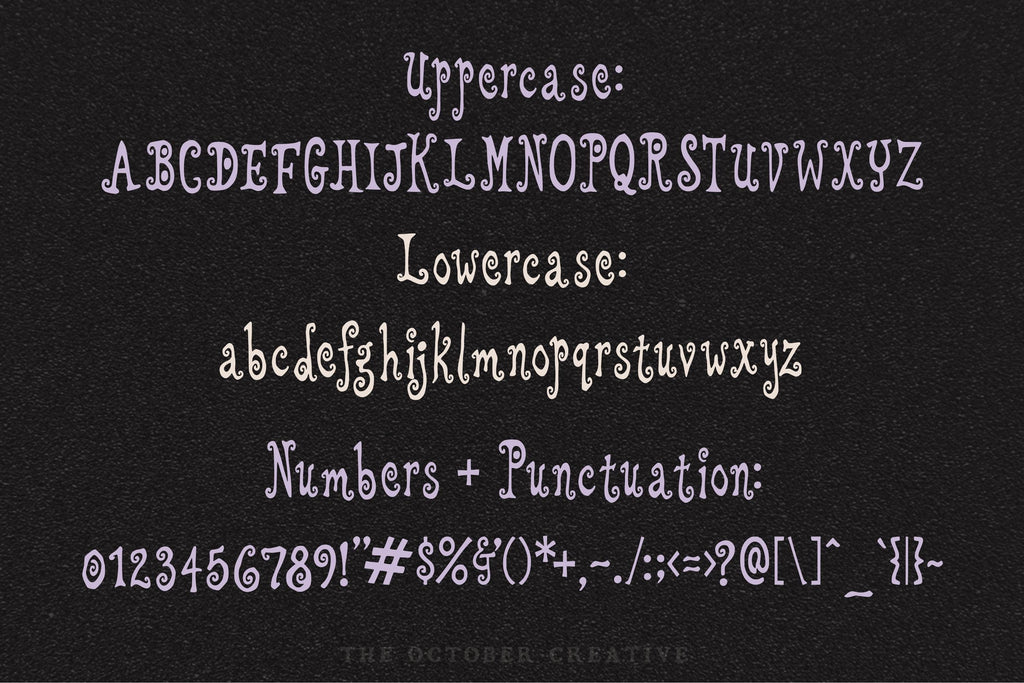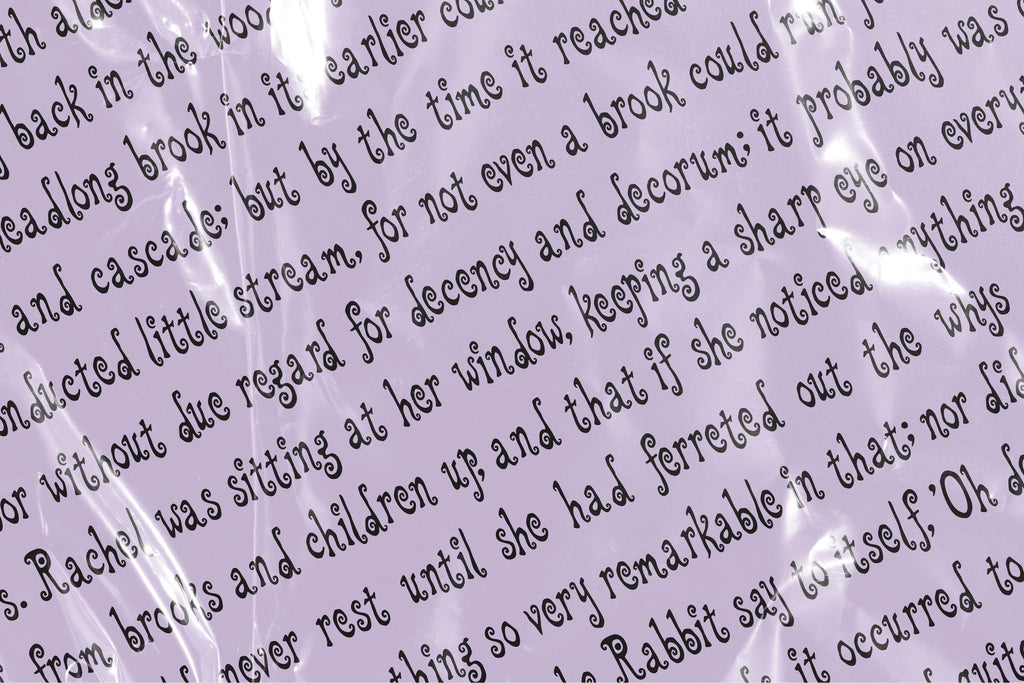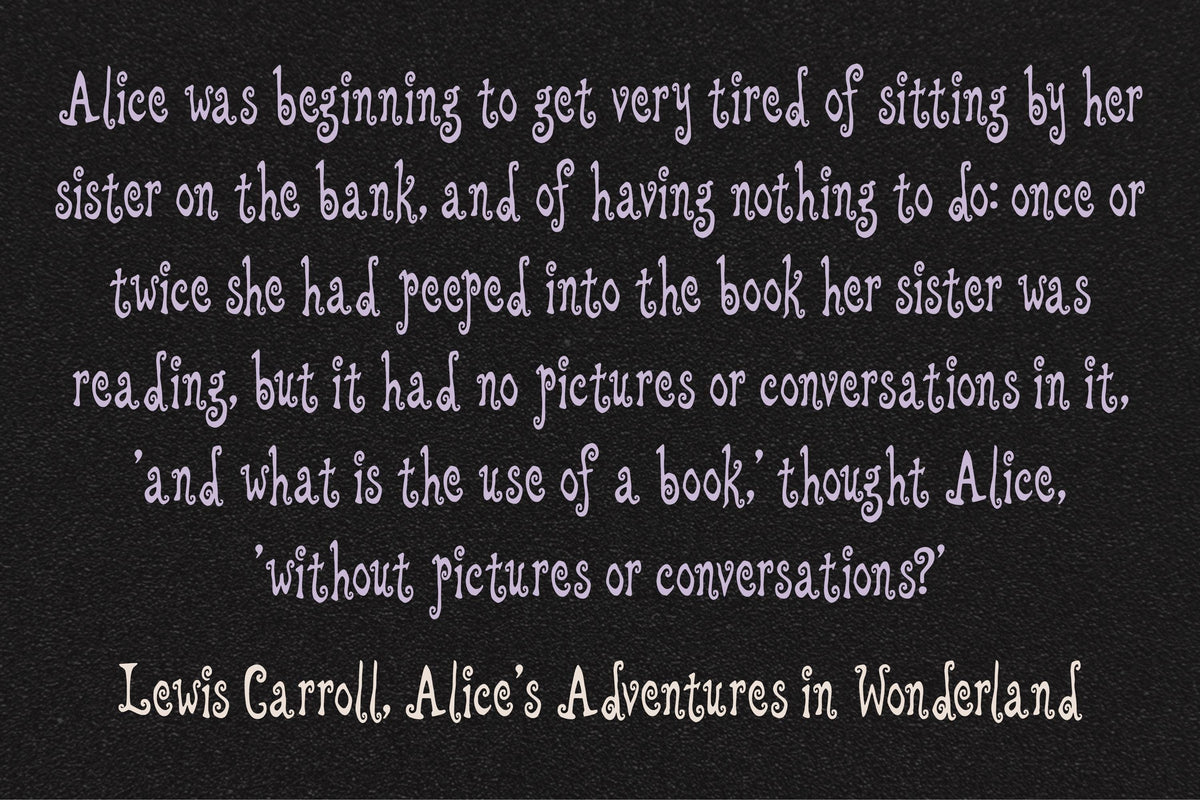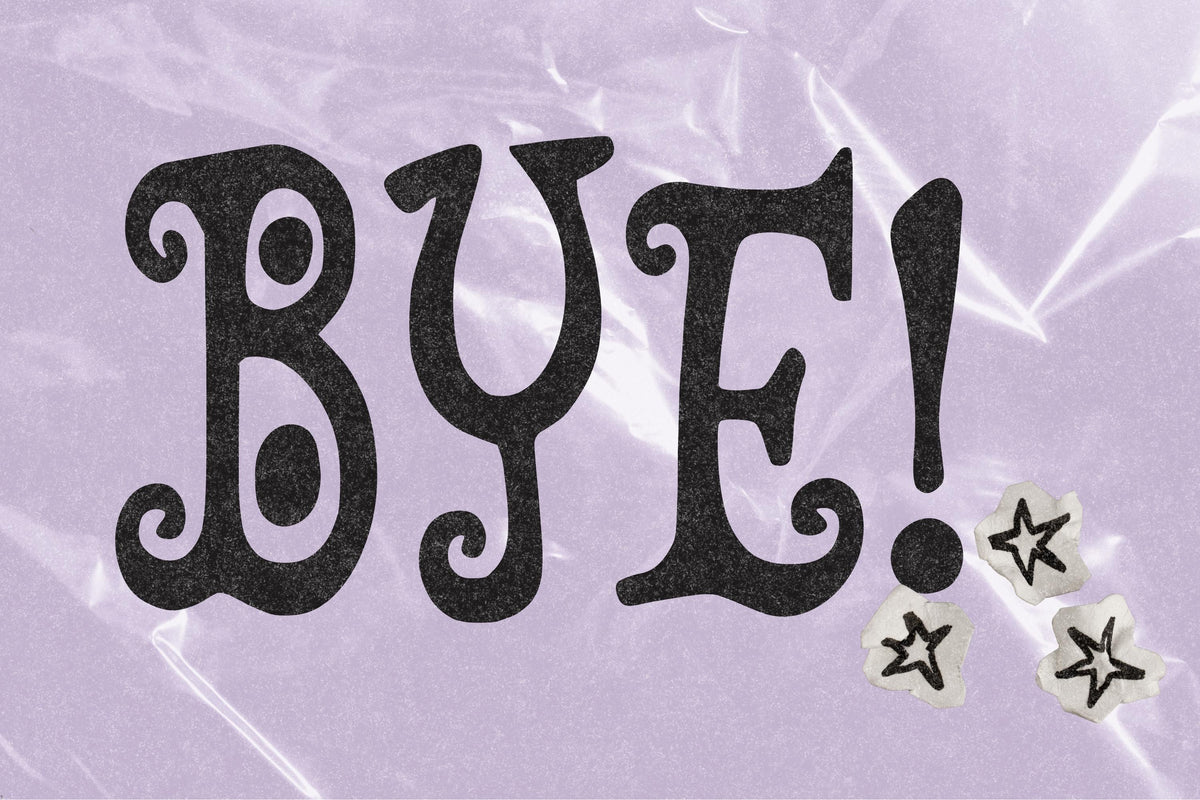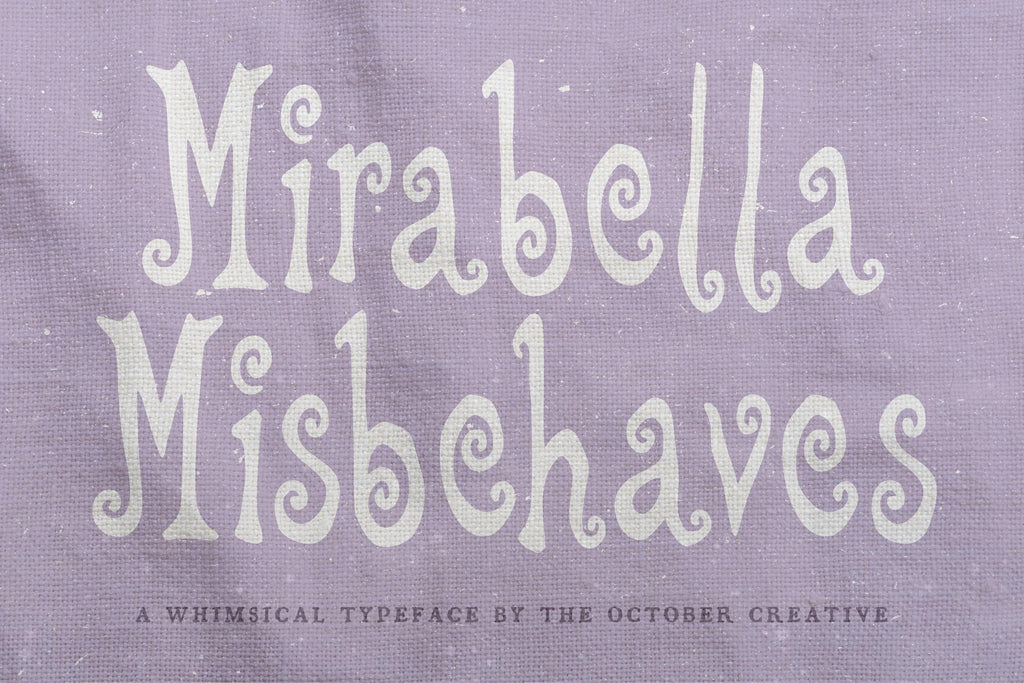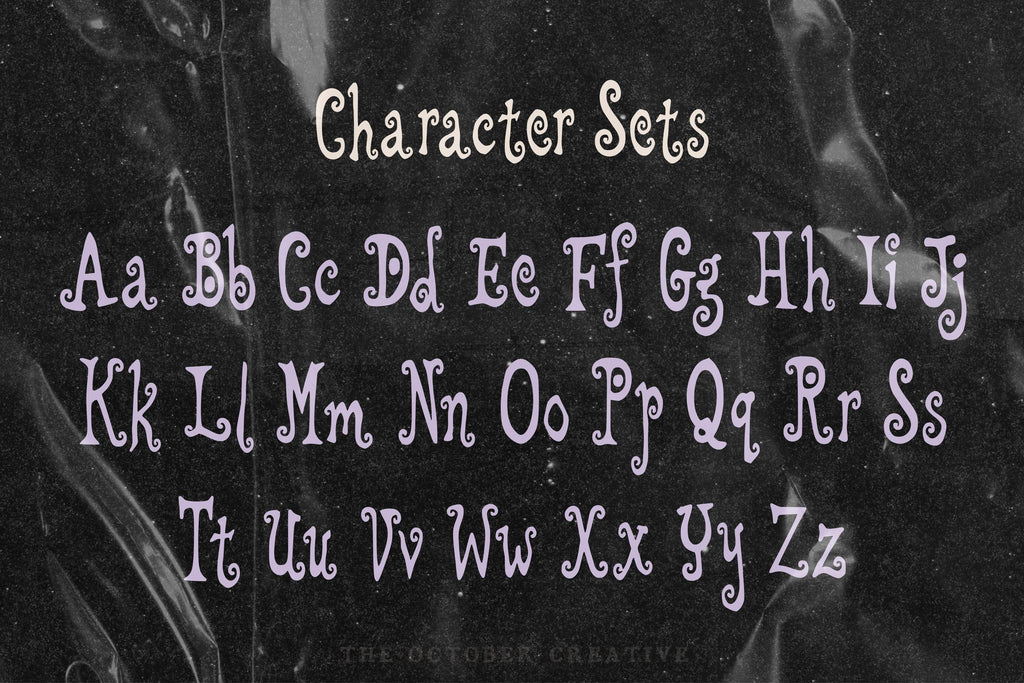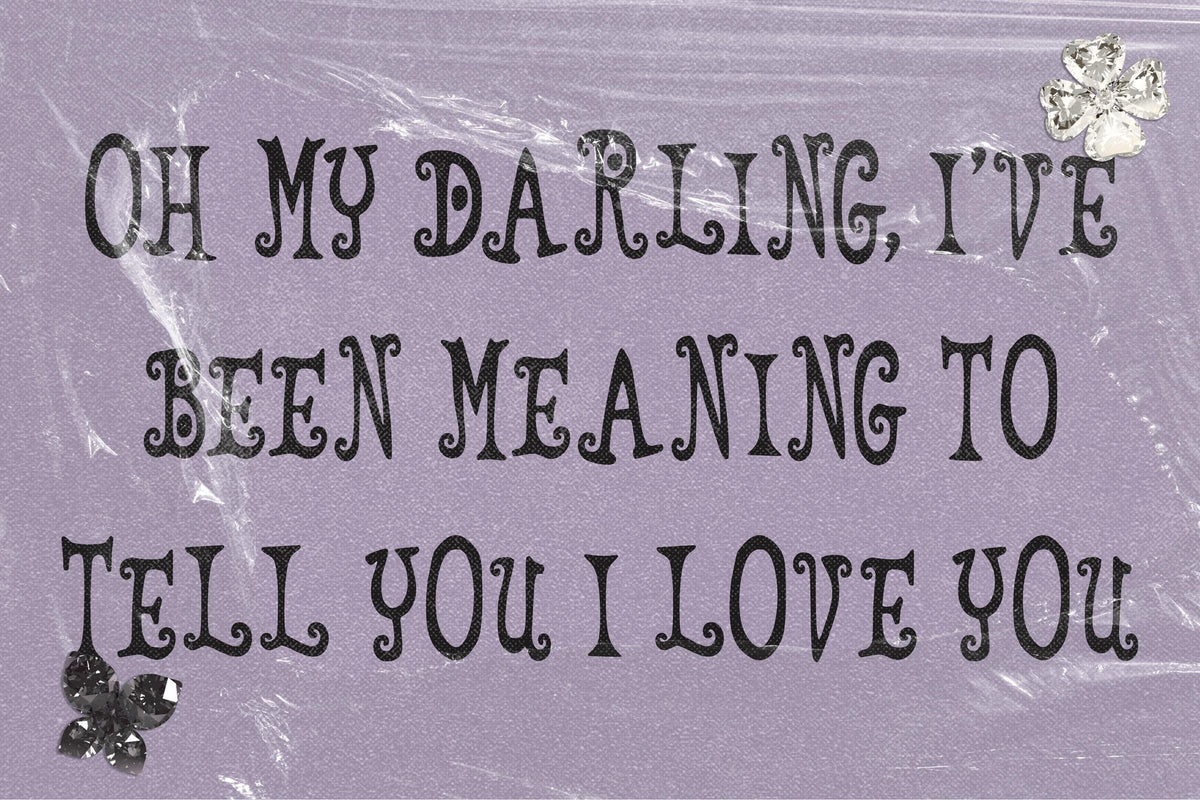
Mirabella Misbehaves Font
Mirabella Misbehaves brings big 70s curves and curling ends to magazine headings, posters, and shop graphics. Its wide, bold letters give a name or a headline plenty of personality, and they're rather hard to ignore.